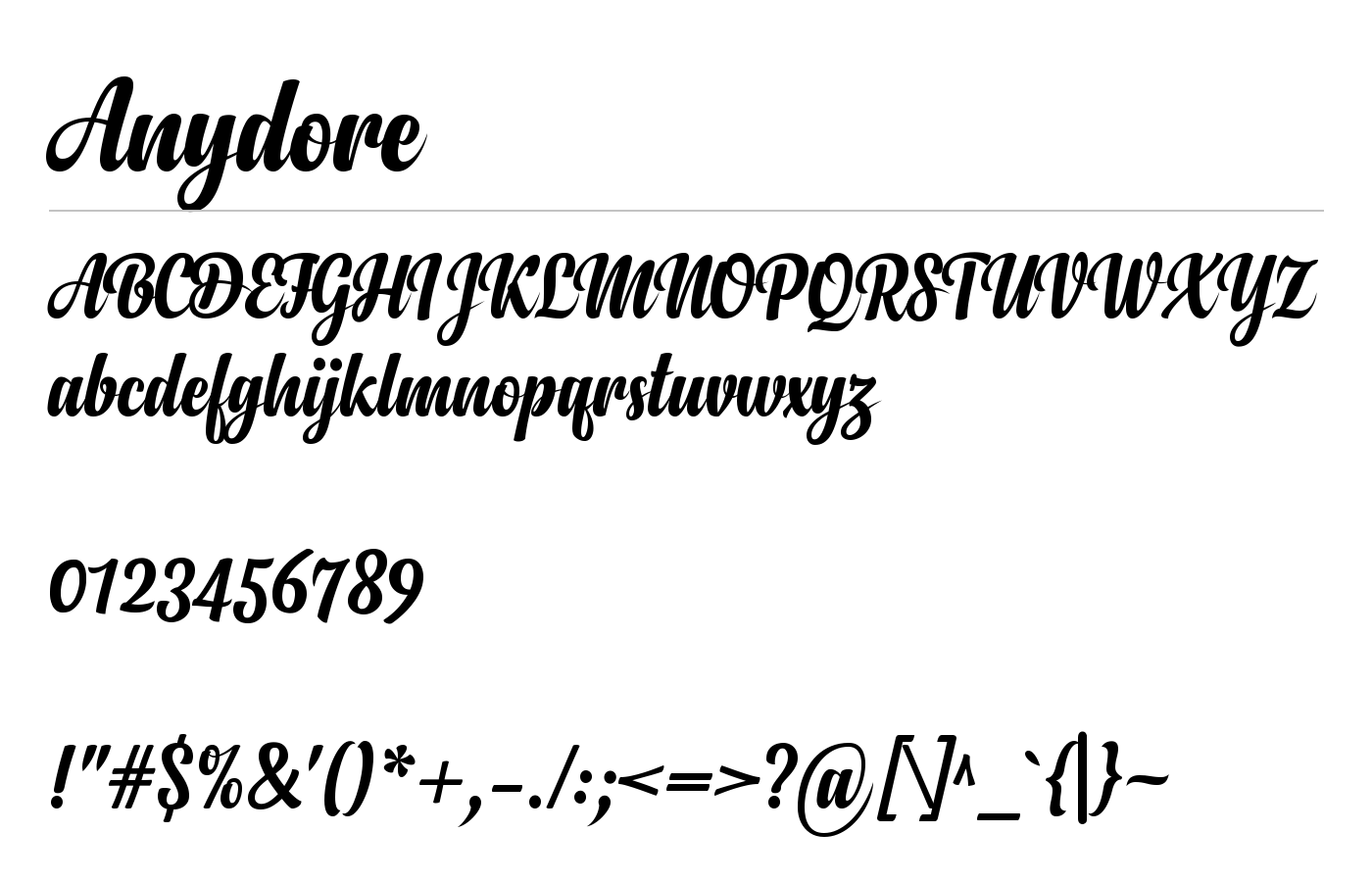
Anydore is a bold, elegant script font with smooth, flowing strokes and a slightly condensed width that lends a stylish, modern flair. Its high contrast and cursive letterforms create a sophisticated yet approachable personality, making it perfect for fashion, branding, invitations, and eye-catching headlines. This font works well wherever a touch of refined charm and creativity is needed to make a strong visual impression.
Anydore Font
About Anydore Font